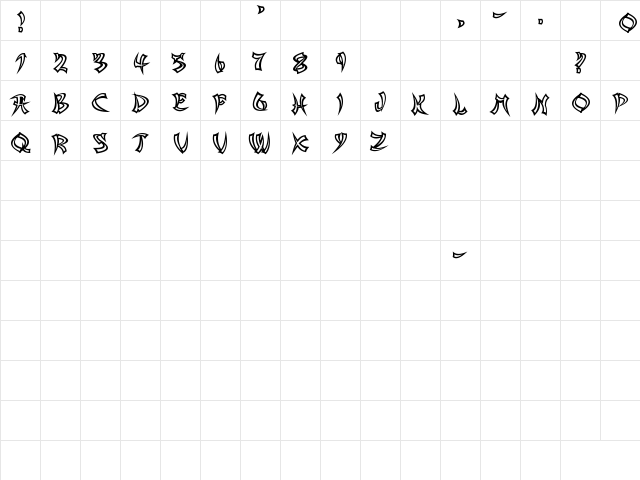
Asian Delight Regular
Designer: IMAGEX
Design Context for Asian Delight
Asian Delight is a composed and adaptable typeface that performs quietly and consistently across a wide range of design contexts. Its slender proportions lend an understated elegance to any composition.